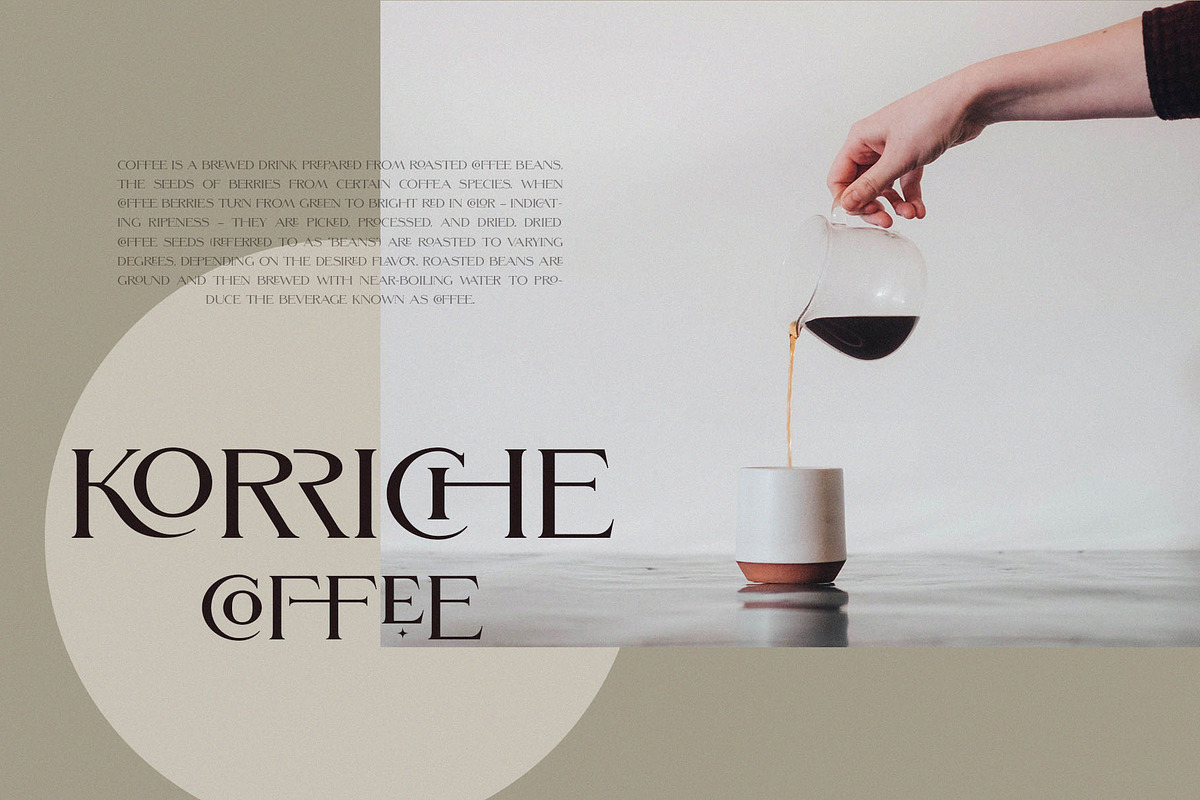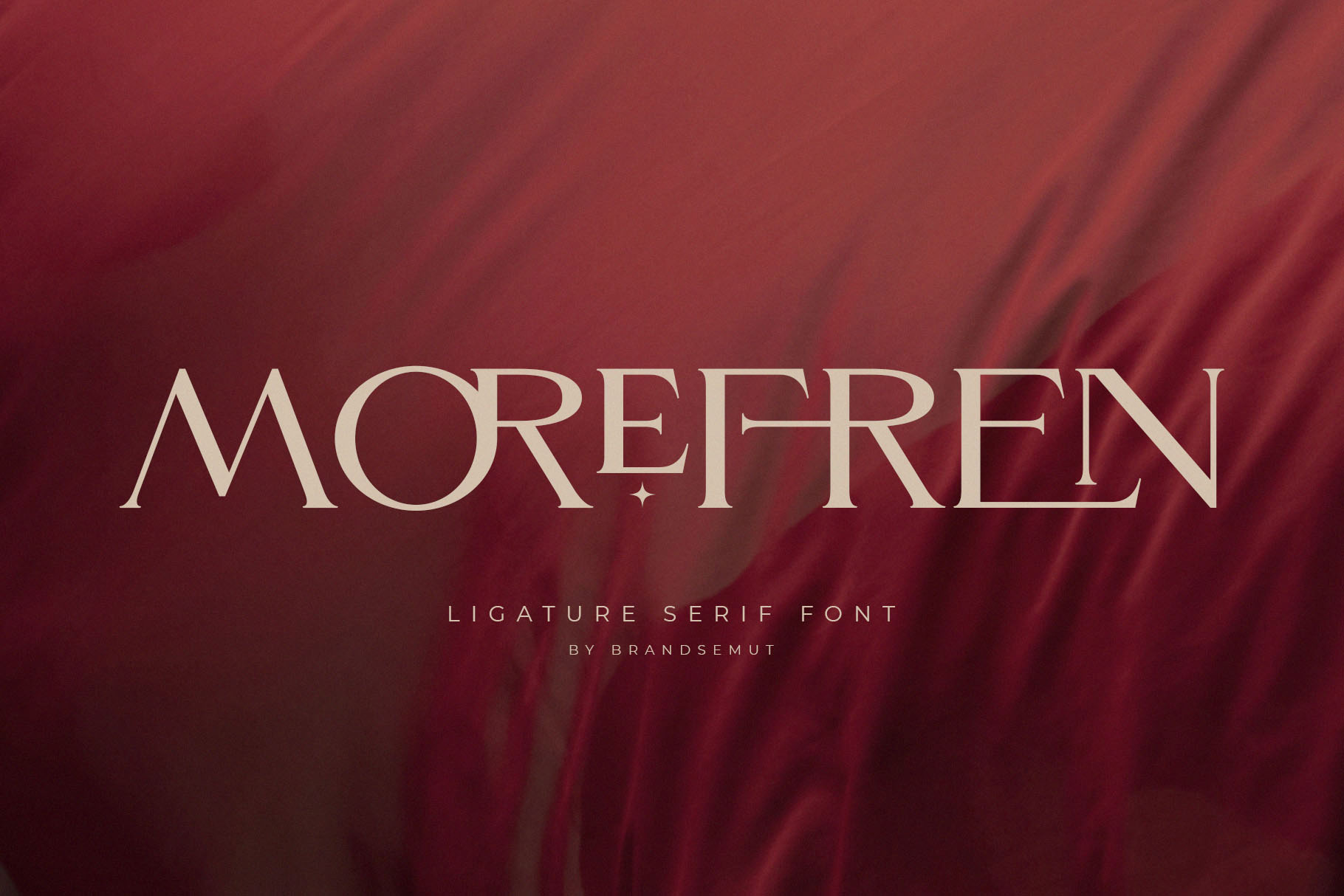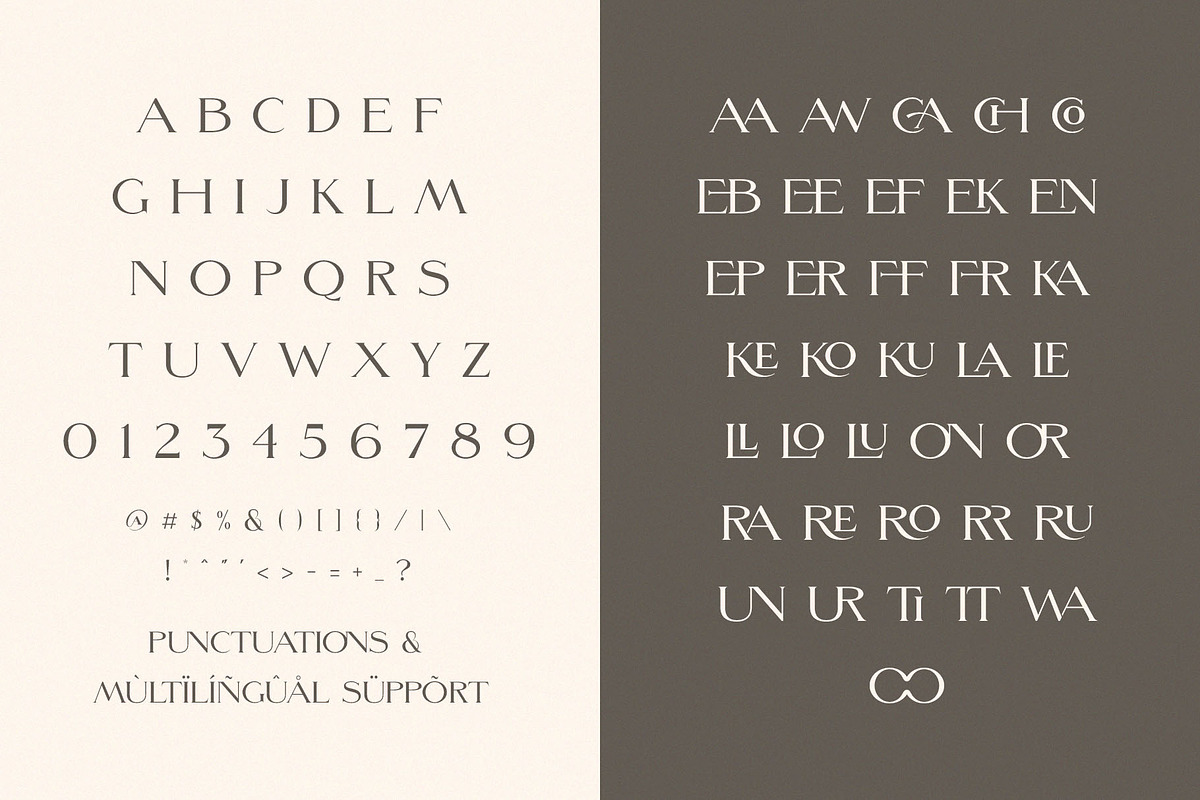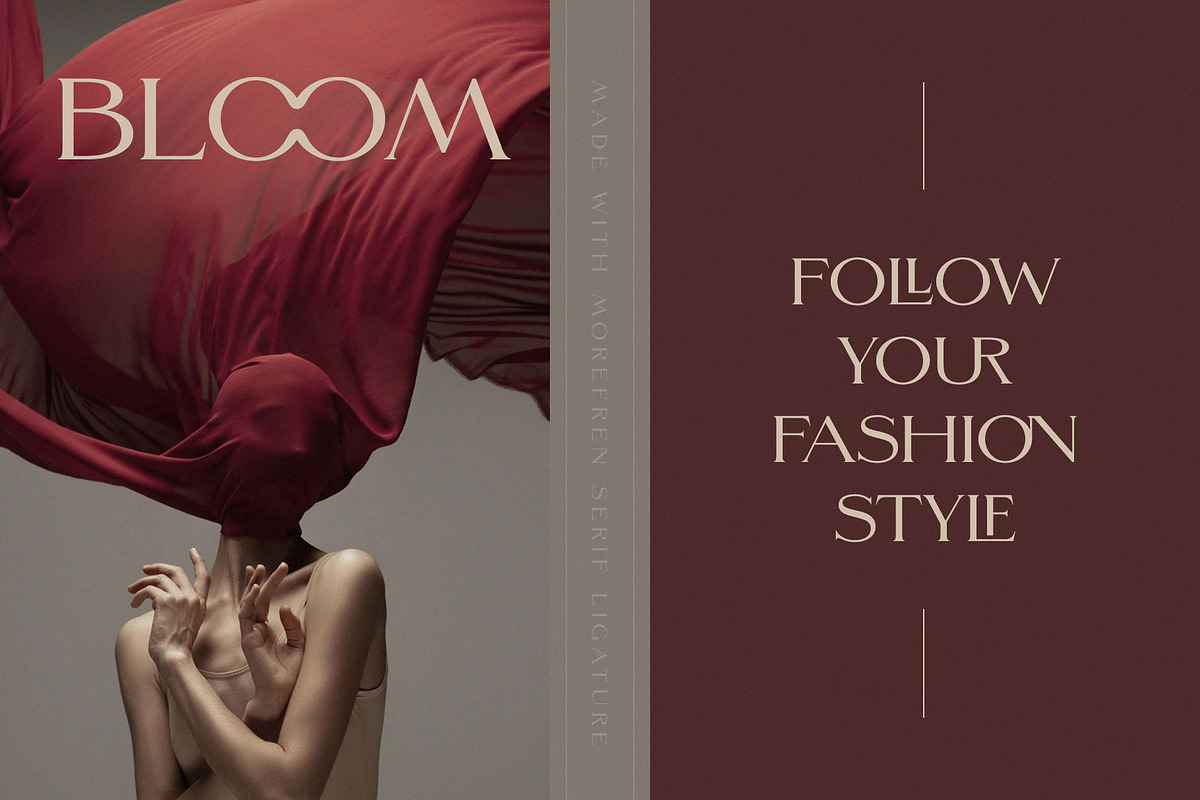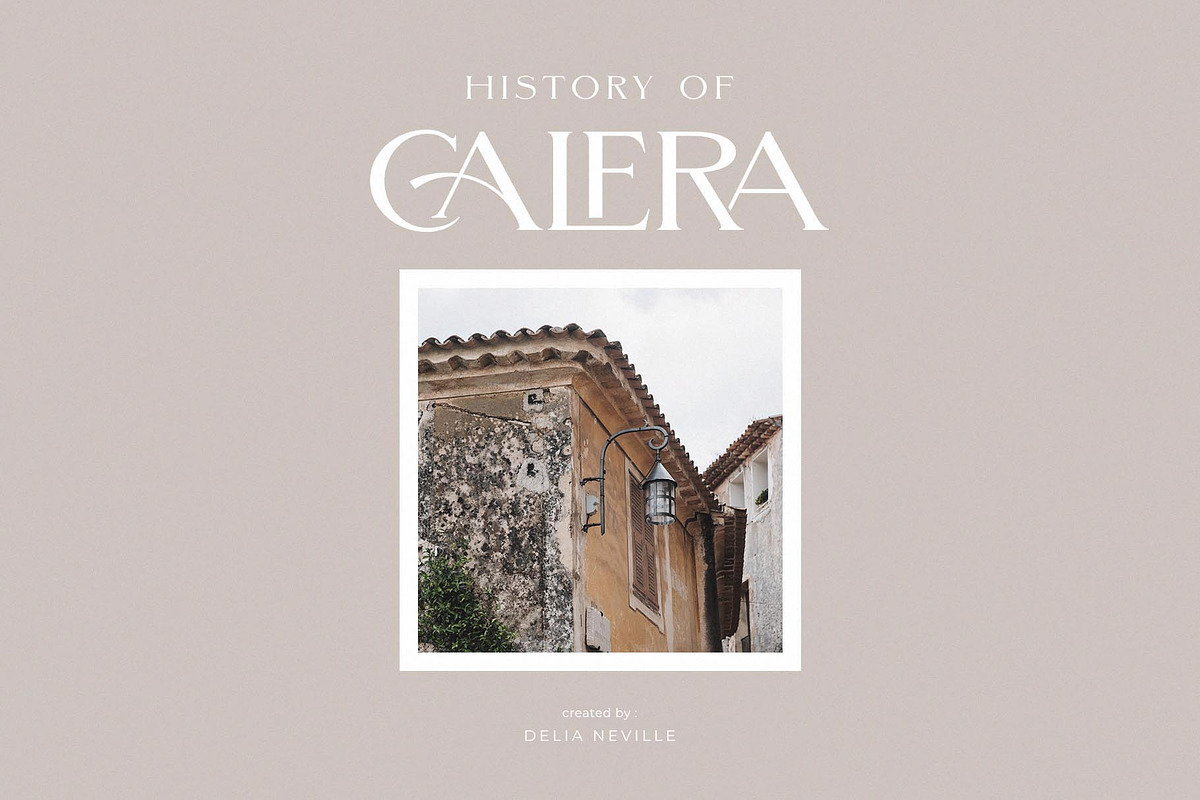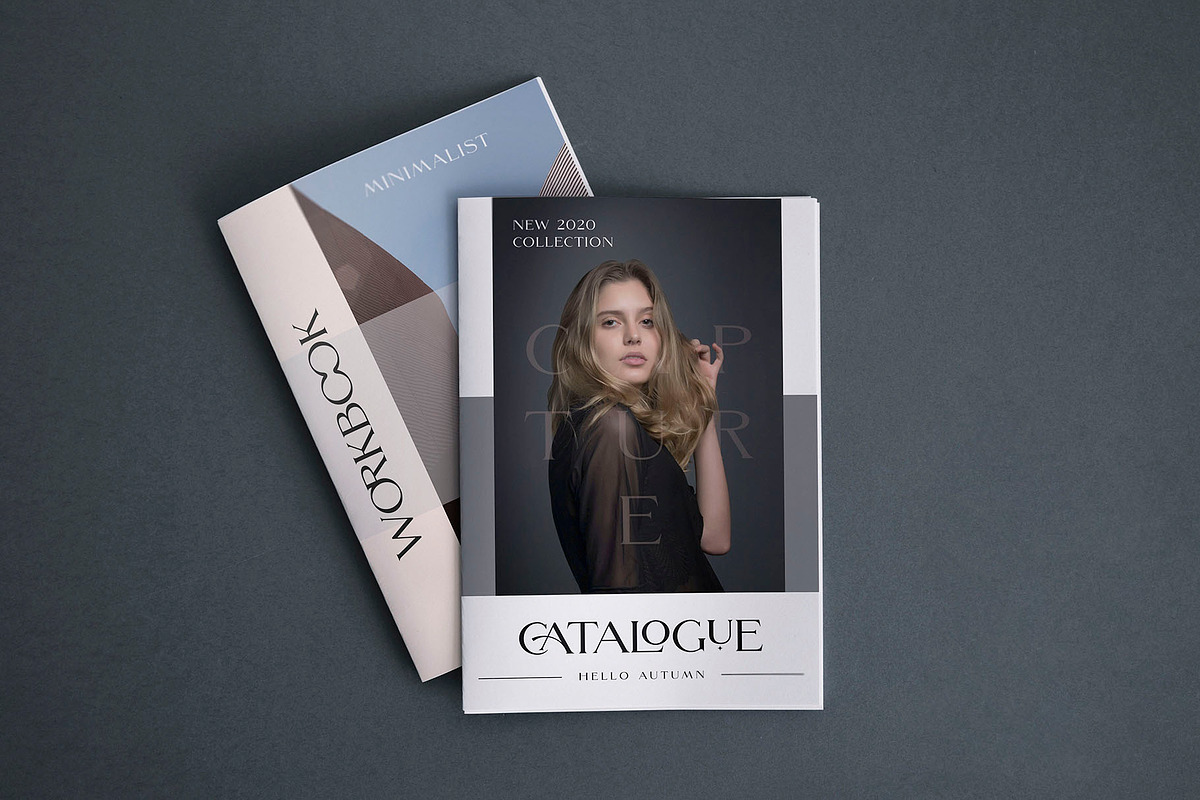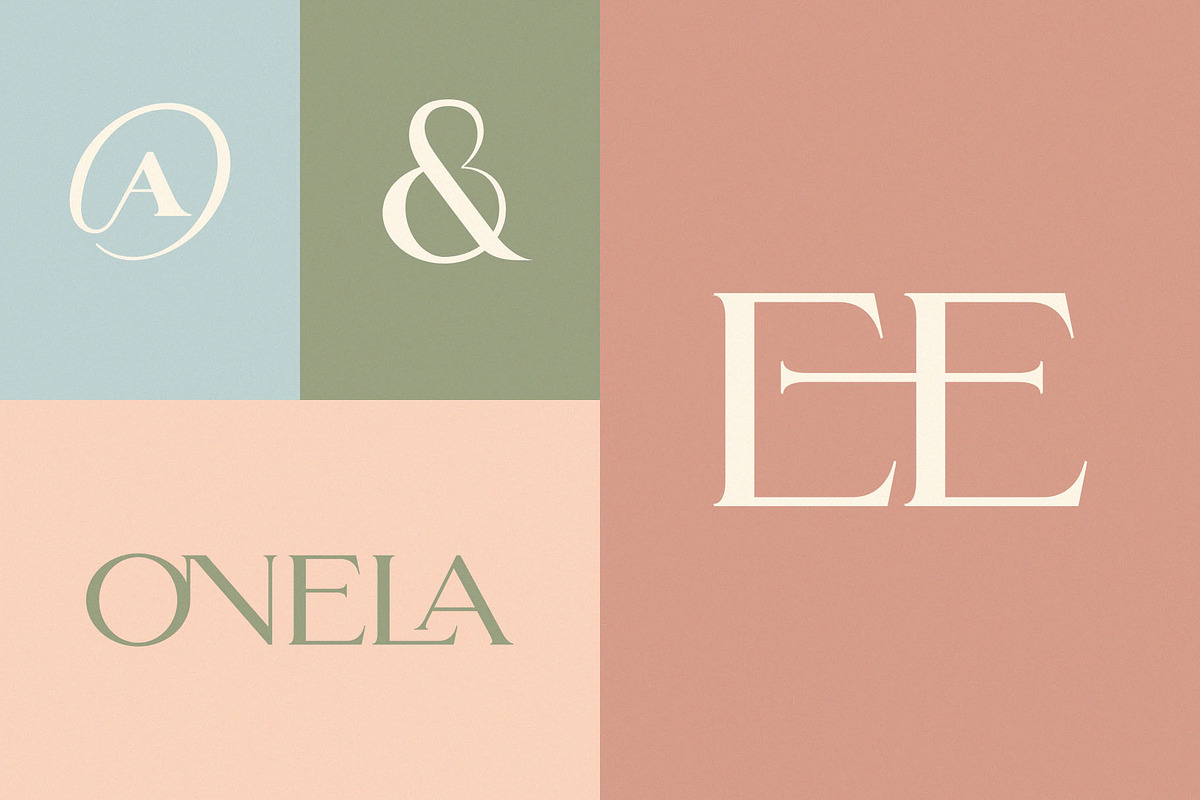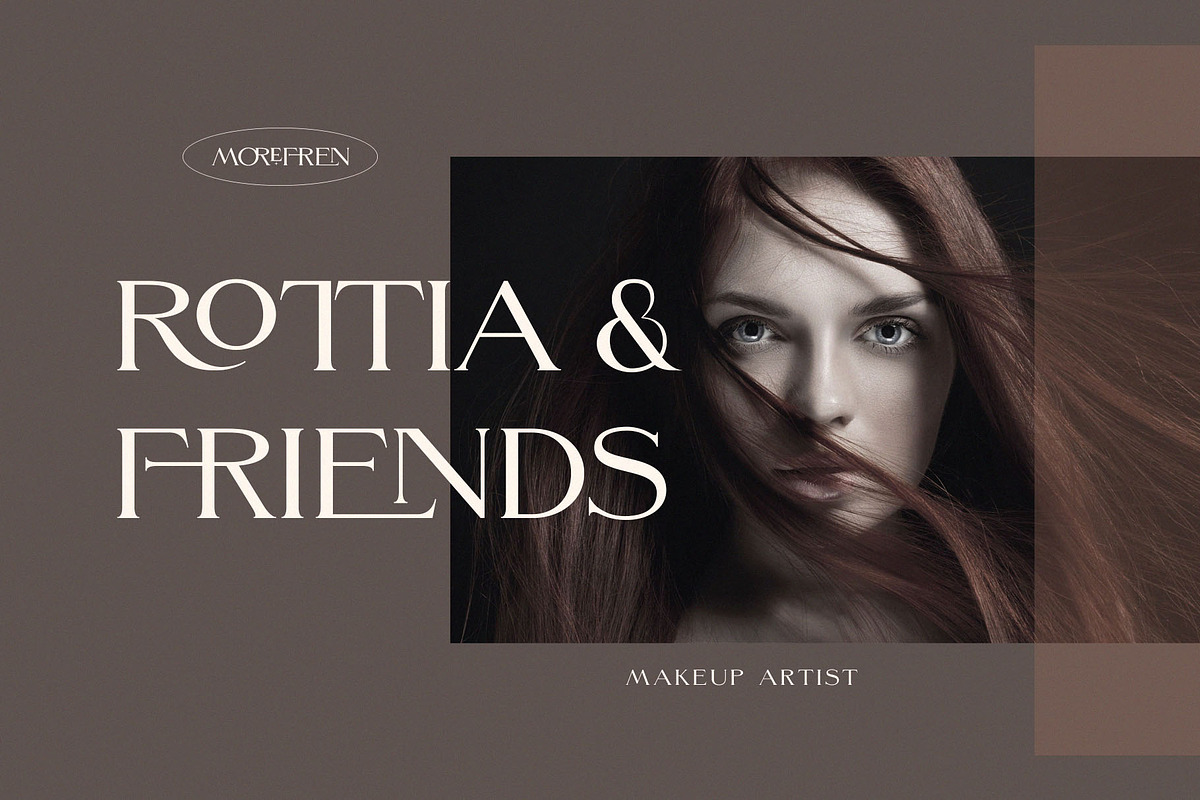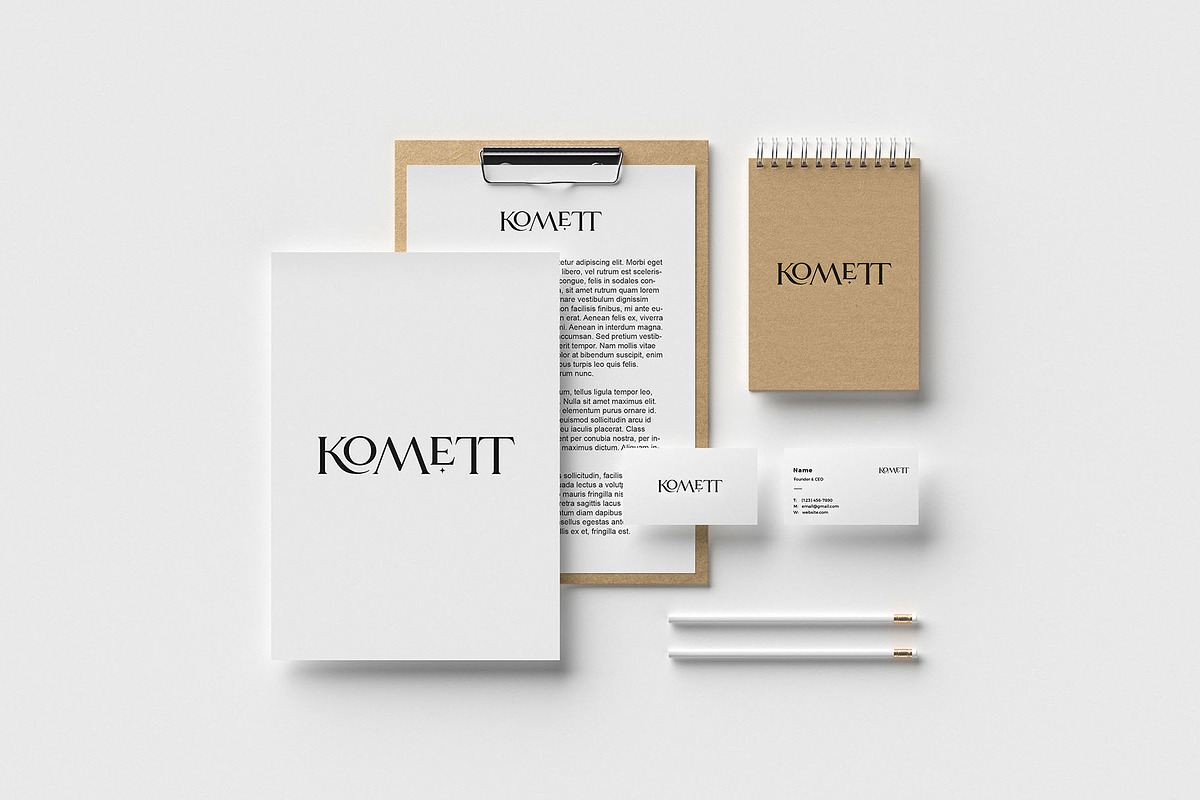
Morefren - Serif Ligature Font
Hello, introducing the new Morefren - Serif Ligature Font!!! Morefren is a elegant and classy serif typeface – This font is both modern and nostalgic and works great for logos, magazine, social media etc. Already matched up and ready to be used together for your next design! For those of you who are needing a touch of elegant, stylish, classy, chic and modernity for your designs, this font was created for you!
Morefren was built with OpenType features and includes 36 ligatures, alternate, numbers, punctuation, and it also supports other languages.